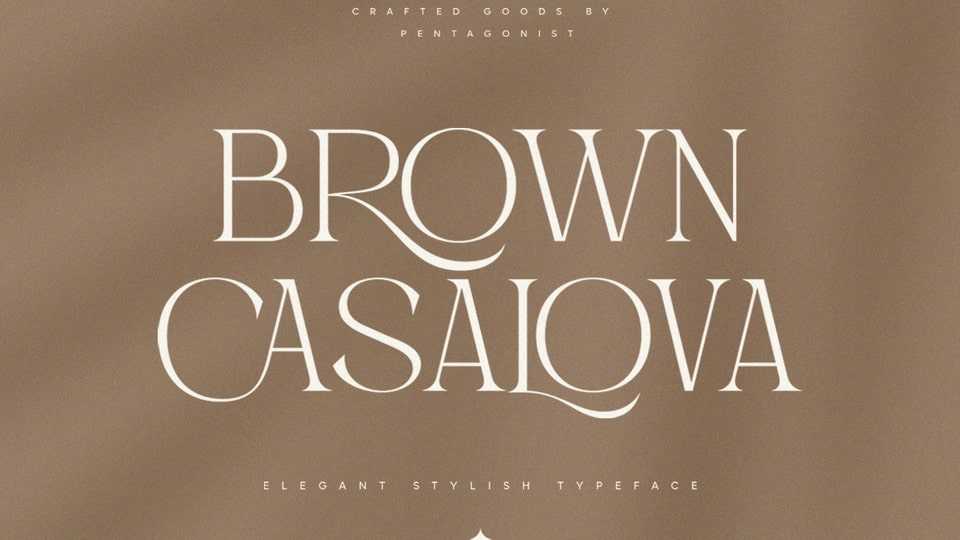
Brown Casalova Font › Fontesk – Download Grátis
Download Brown Casalova font, an elegant and stylish serif typeface inspired by classic typography. Brown Casalova is perfect to add a touch of luxury and style to your projects, high end branding, logo designs, product packaging and invitation designs.